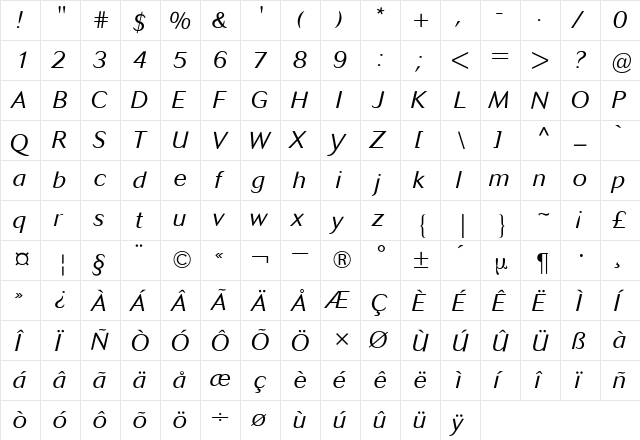
Cosmos BQ Italic
Design Context for Cosmos BQ Typeface
Cosmos BQ takes a measured approach to typography — its balanced proportions and neutral character make it a reliable workhorse for both digital and print work. Its italic angle brings a sense of urgency and motion to the letterforms.
Pro Tip: Try Cosmos BQ for annotation and caption copy alongside an upright companion — the contrast in angle creates a dynamic but ordered typographic system.